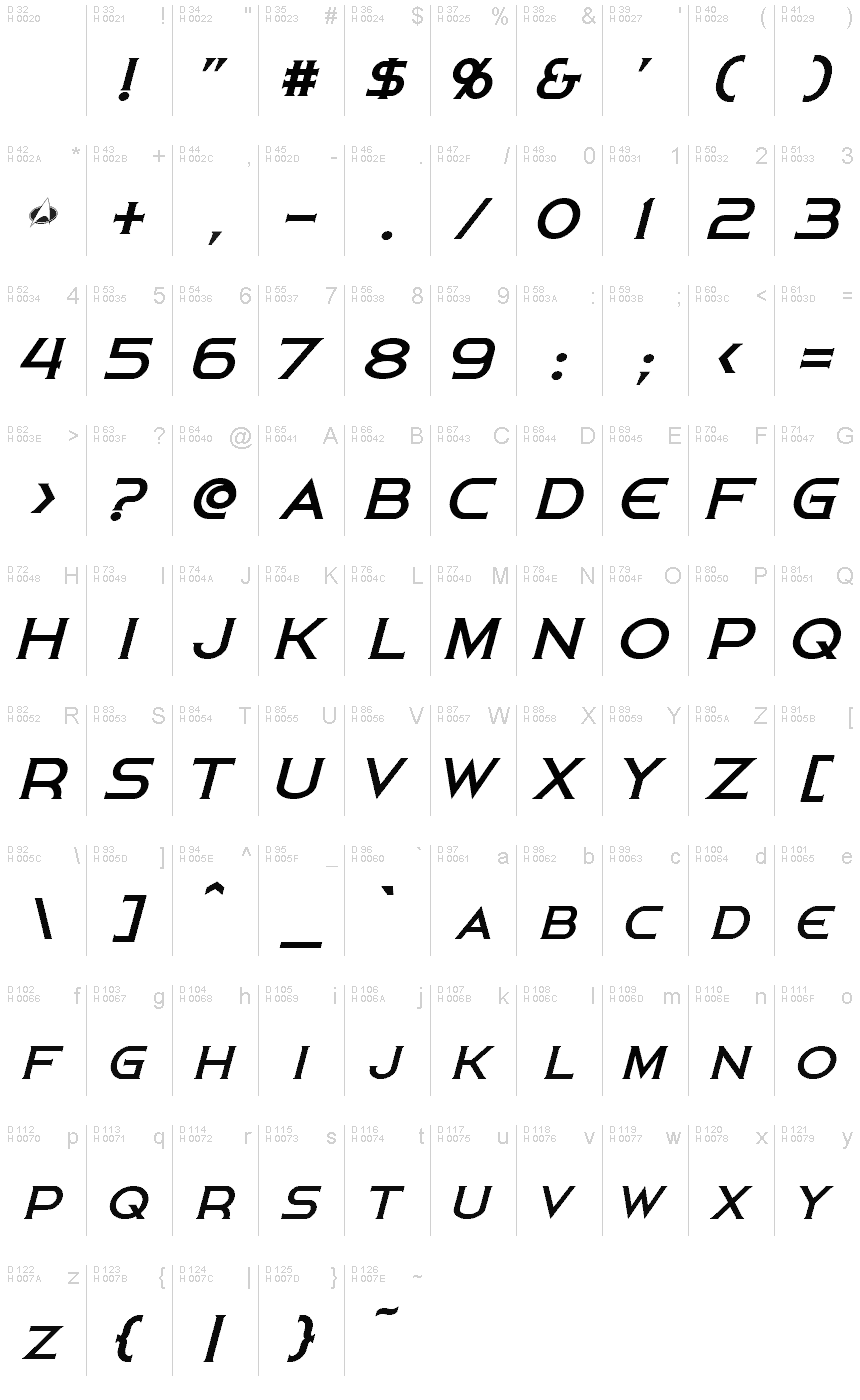
Persis Italic
Persis is a captivating font that embodies the essence of futuristic sci-fi aesthetics. With its expanded, italic form and sleek, angular lines, this display typeface evokes the bold, imaginative spirit of the Star Trek franchise that inspired its creation. The sharp, dynamic letterforms exude a sense of velocity and technological advancement, making Persis an ideal choice for titles, logos, and branding in sci-fi, technology, and modern design contexts.
Its versatile character set, including extended punctuation and the euro symbol, further enhances its versatility and appeal across a range of applications.